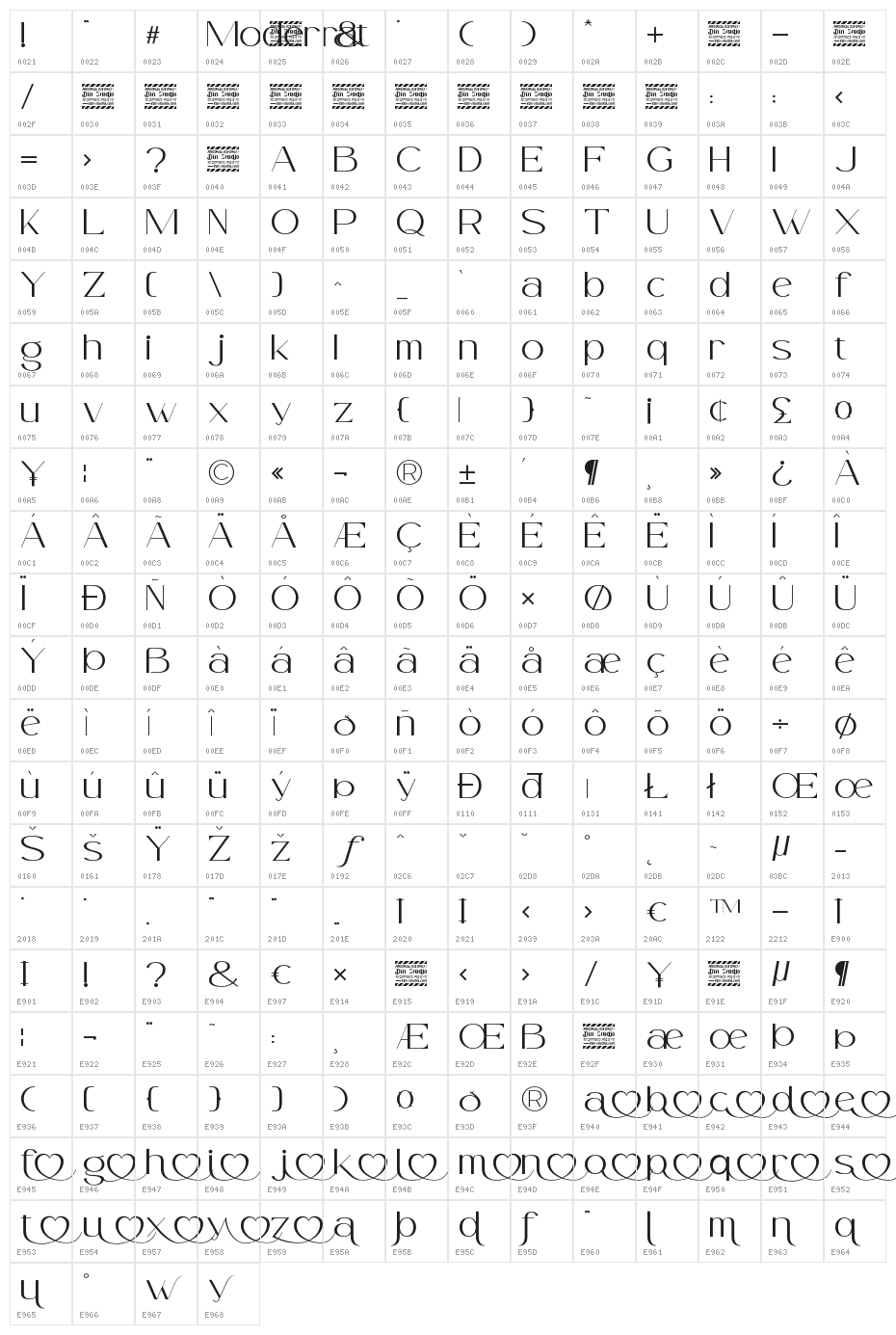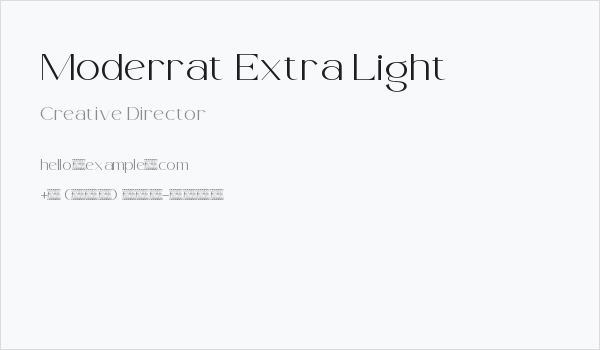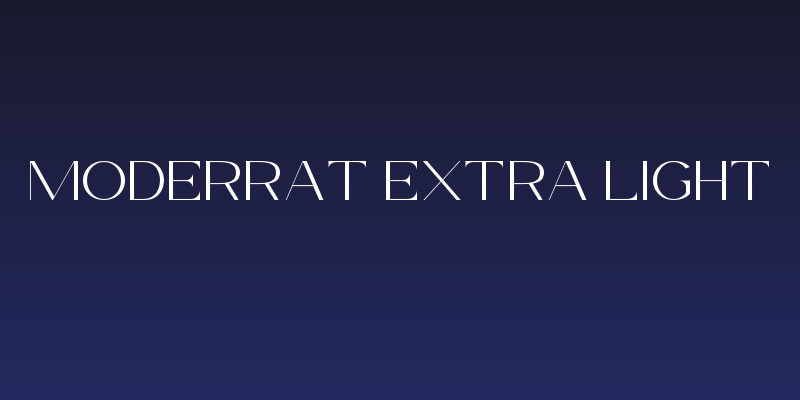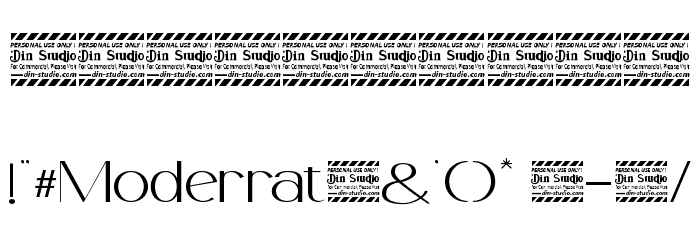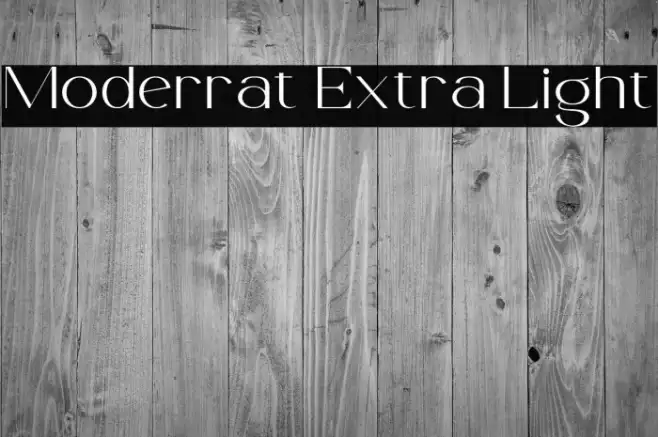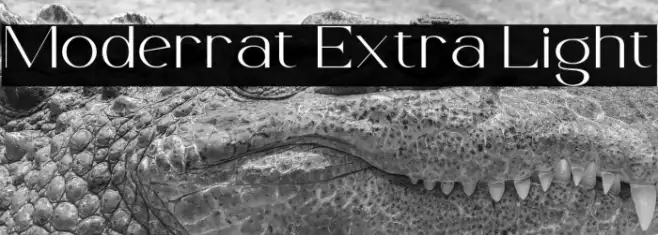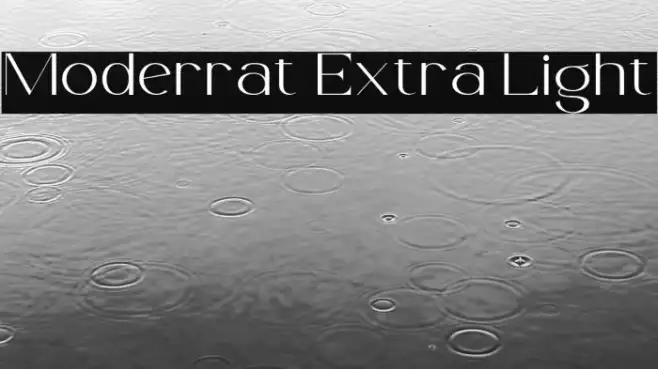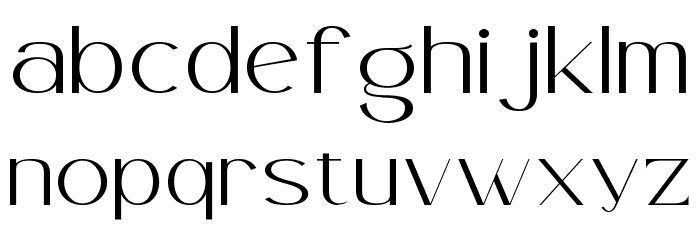
Moderrat Extra Light Font
Moderrat Extra Light Description
This font features a sleek and modern design with clean lines and a minimalist aesthetic. The uppercase and lowercase letters are elegantly crafted with a consistent stroke width, giving it a refined and sophisticated look. The characters are slightly elongated, adding a touch of elegance and style. The font maintains a balanced proportion between the height and width of the letters, ensuring readability and visual appeal. The special characters are designed with the same attention to detail, seamlessly integrating with the overall style. This font is perfect for projects that require a contemporary and stylish appearance.